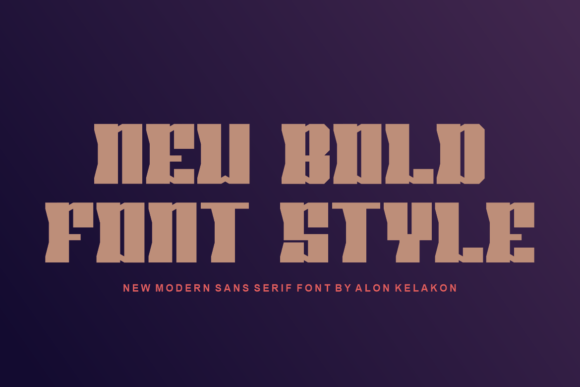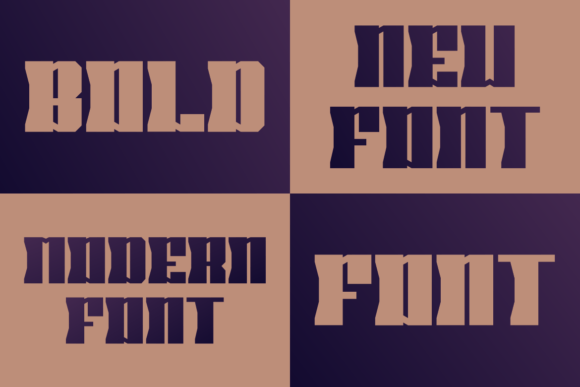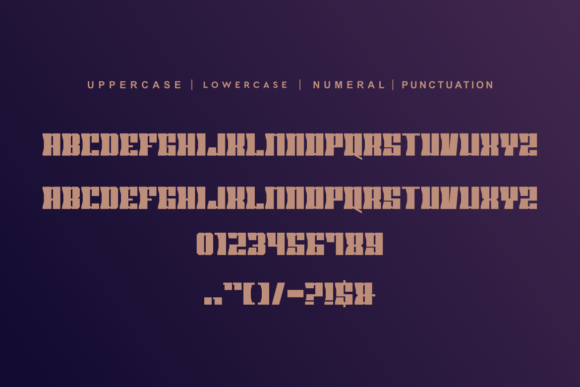
Introduction to Kerpose Font
Kerpose is a bold and assertive display font.
This original look will appeal to a wide range of crafty ideas, from letterheads and titles to stationery .
Kerpose Font offers exceptional quality and versatility, making it a valuable addition to your design toolkit. Whether you’re creating for personal projects or commercial use, Kerpose Font delivers professional results.